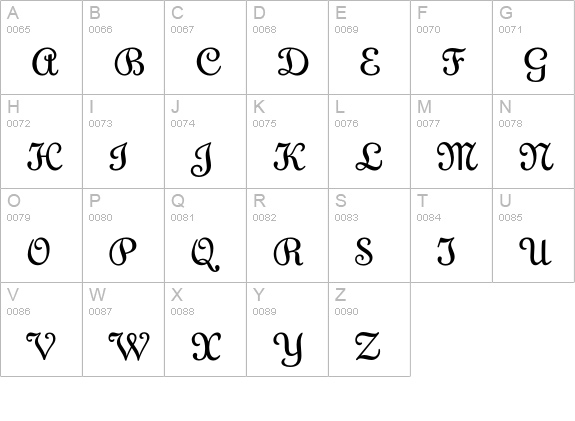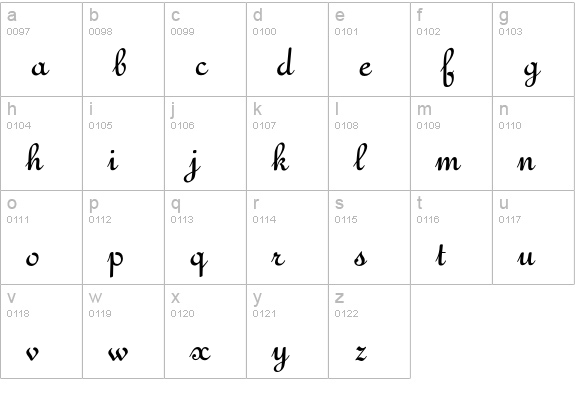
SpecialAlphabetsP01 Font Details
SpecialAlphabetsP01 is a truly unique and visually captivating font that is sure to make a statement in any design project. Its intricate and ornate letterforms are meticulously crafted to create a sense of elegance and sophistication. This font offers a wide range of special alphabets, including decorative elements, symbols, and intricate patterns, making it perfect for adding a touch of creativity and flair to any design. What sets SpecialAlphabetsP01 apart is not only its stunning aesthetics but also its accessibility. This font is freely available to download at FontsMarket.com, making it accessible to designers of all levels and budgets. Whether you're a professional graphic designer looking to add an extra layer of creativity to your projects or a hobbyist looking to experiment with unique and eye-catching typography, SpecialAlphabetsP01 is the perfect choice. With its extensive range of special alphabets, this font allows you to explore endless possibilities in your designs. From creating captivating headlines and titles to adding decorative elements and flourishes to your artwork, SpecialAlphabetsP01 provides you with the tools to truly elevate your designs. Its versatility makes it suitable for a wide range of design projects, including logos, branding materials, invitations, posters, and more. Not only does SpecialAlphabetsP01 offer an abundance of special alphabets, but it also boasts excellent readability. Each letter is carefully crafted to ensure legibility, even in smaller sizes. This makes it ideal for both print and digital designs, ensuring that your message is effectively conveyed to your audience. In conclusion, SpecialAlphabetsP01 is a stunning and versatile font that offers a wide range of special alphabets, symbols, and decorative elements. Its accessibility and exceptional readability make it a valuable asset to any designer's toolkit. Whether you're a professional or a hobbyist, this font is freely available to download at FontsMarket.com, allowing you to unleash your creativity and take your designs to the next level.